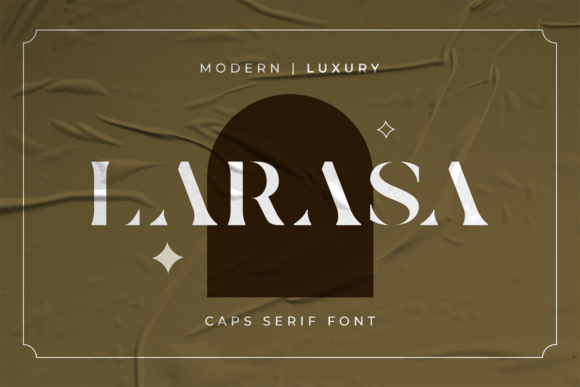
Unleash the allure of script tattoos with Larasa Font, an exquisite serif wonder crafted to tantalize your artistic spirit. Each letter dances across your canvas, a testament to the opulence and sophistication of its design. Whether it's wedding invitations adorned with timeless elegance or thank-you notes brimming with heartfelt gratitude, Larasa Font weaves a spell of enchantment. Its versatility extends to logos that command attention and greeting cards that evoke sheer delight.
Dive into a world of enchanting design possibilities with Larasa Font. Its timeless beauty adds a touch of luxury to any visual creation. Allow your imagination to soar as you explore the boundless potential of this elegant serif masterpiece. From the delicate flourishes of a script tattoo to the stately presence of a grand logo, Larasa Font transforms ordinary designs into extraordinary masterpieces.
Elevate your artistic endeavors to new heights with Larasa Font, the perfect companion for those with a discerning eye for detail. Each curve, each stroke, each letterform has been lovingly crafted to evoke a sense of awe and wonder. Experience the joy of effortlessly creating designs that leave an unforgettable impression. Make Larasa Font your font of choice and let your creativity shine through.